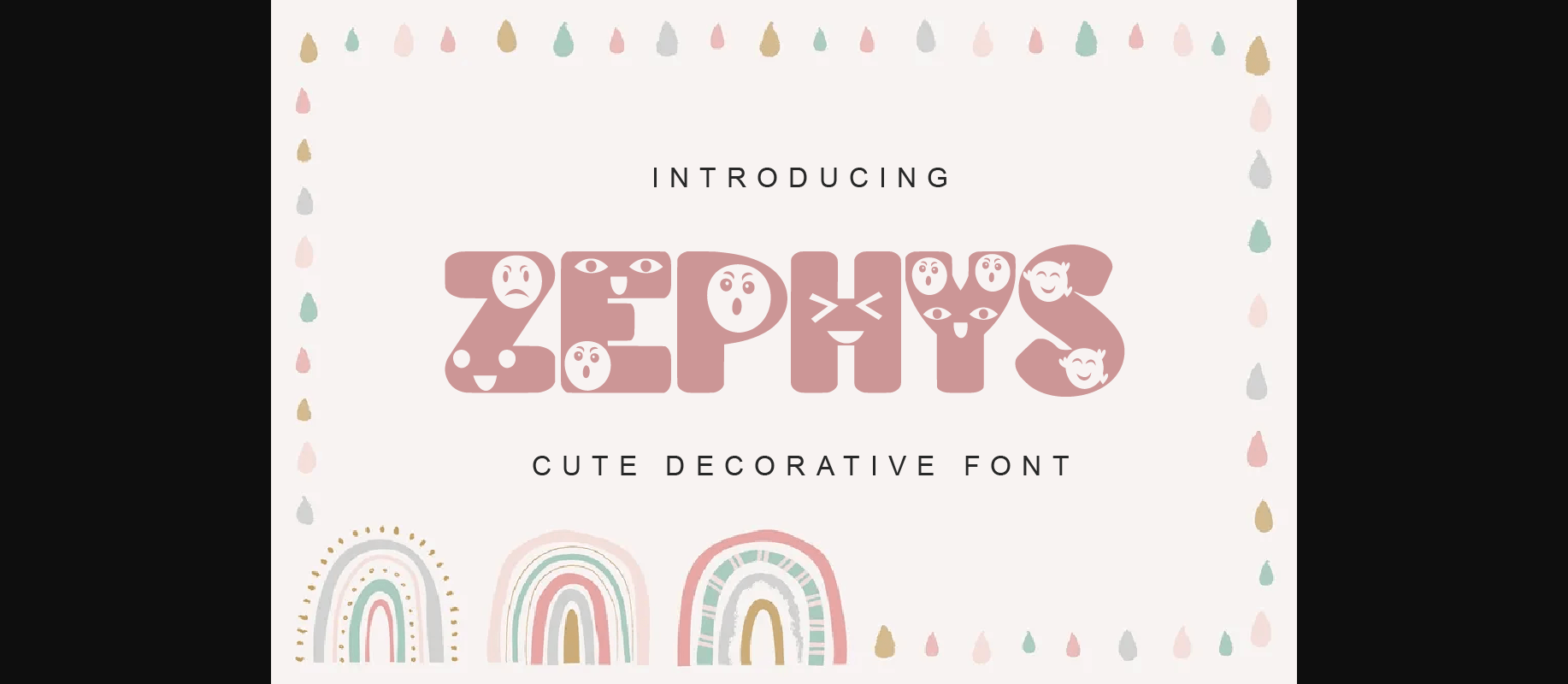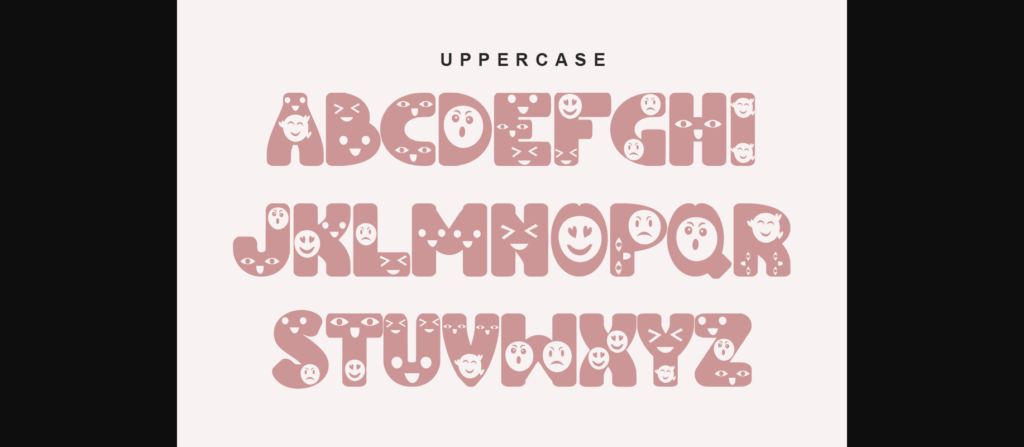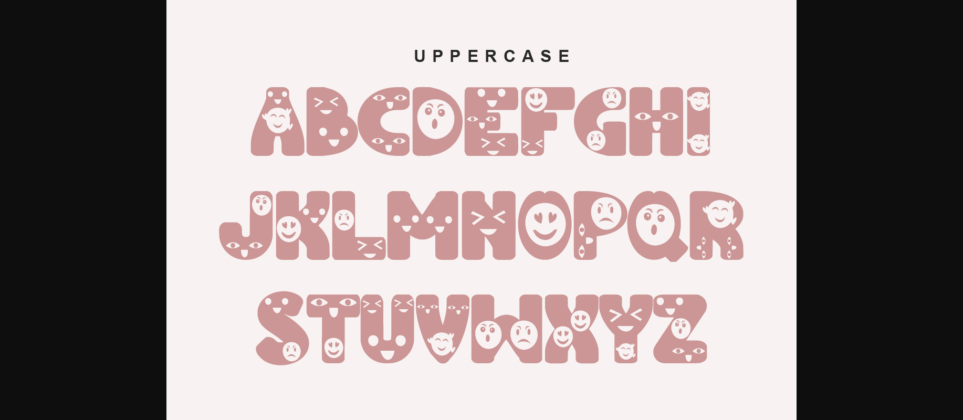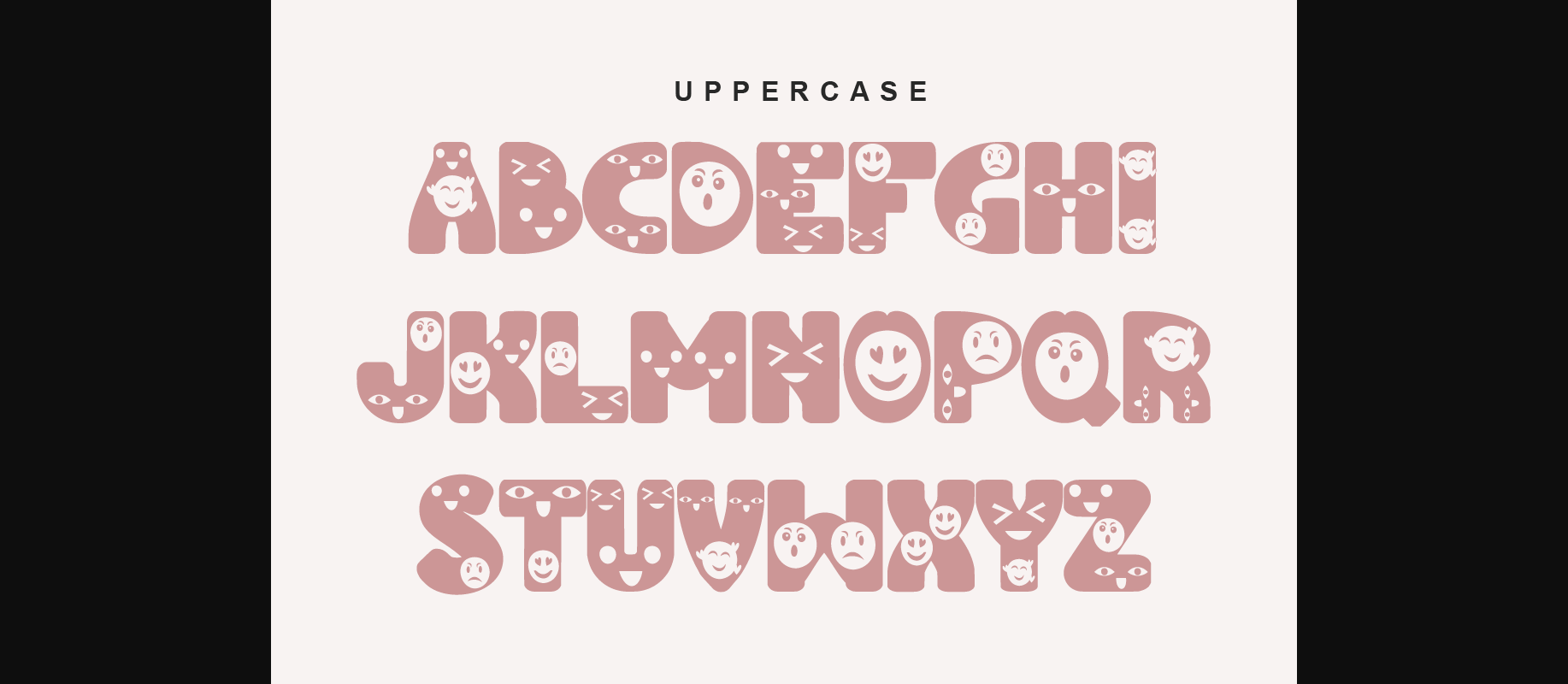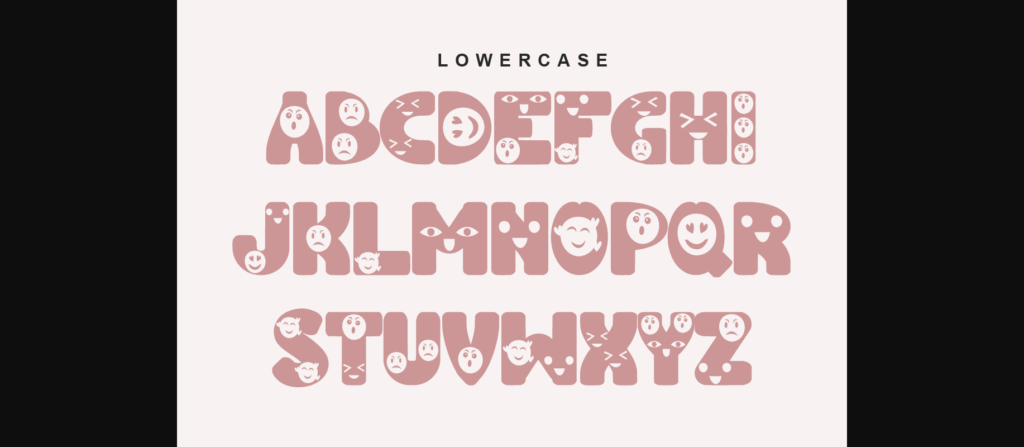
About Zephys Font
Zephys is a Cute Decorative font. This font is perfect for perfecting your designs. This font is suitable for a variety of your creative projects such as stickers, decals, clothes, book covers, printing, bowls, mugs, SVG cut files, Cricut, and many more.